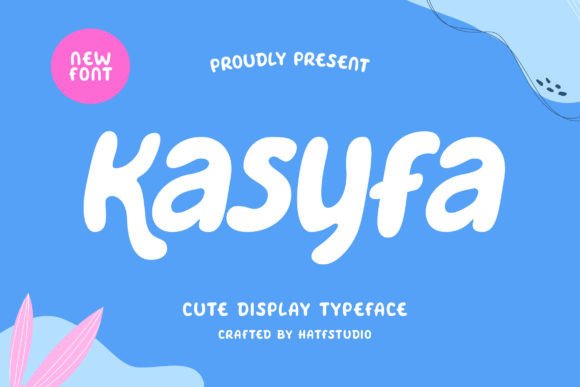
Journey into the world of captivating design with Kasyfa Font, a display typeface that dances with elegance and charm. Its distinctive handwritten characters exude a personal touch, adding a dash of warmth to your creative endeavors. Immerse yourself in a symphony of style, where every letter becomes an artistic masterpiece.
Kasyfa Font is your perfect companion for crafting unforgettable branding projects. Its playful personality shines through in logos, wedding designs, and media posts, leaving a lasting impression that lingers in the minds of your audience. Unleash your creativity and let Kasyfa Font transform your designs into visual masterpieces.
Step into the spotlight with Kasyfa Font, the ultimate choice for eye-catching advertisements and product packaging. Its bold presence demands attention, ensuring your products stand out from the crowd. Create product designs that capture hearts and labels that whisper tales of elegance. Let Kasyfa Font be your muse, guiding you towards design excellence.
Dive into the world of visual storytelling with Kasyfa Font. Its enchanting aura adds a touch of magic to your photographs, turning them into captivating memories. Design watermarks that leave an indelible mark, adding a signature touch to your creative works. Craft invitations and stationery that exude sophistication, setting the tone for unforgettable events.
With Kasyfa Font, every project is an opportunity to make a statement. Its versatility knows no bounds, adapting seamlessly to your creative vision. Whether you're designing for branding, marketing, or personal expression, Kasyfa Font is your trusted ally, transforming your ideas into tangible works of art.
Embrace the beauty of Kasyfa Font, a display typeface that ignites the imagination. Let its handwritten charm infuse your designs with a touch of whimsy and delight. Experience the power of typography and unlock a world of creative possibilities. Download Kasyfa Font today and embark on a journey of artistic expression like never before.